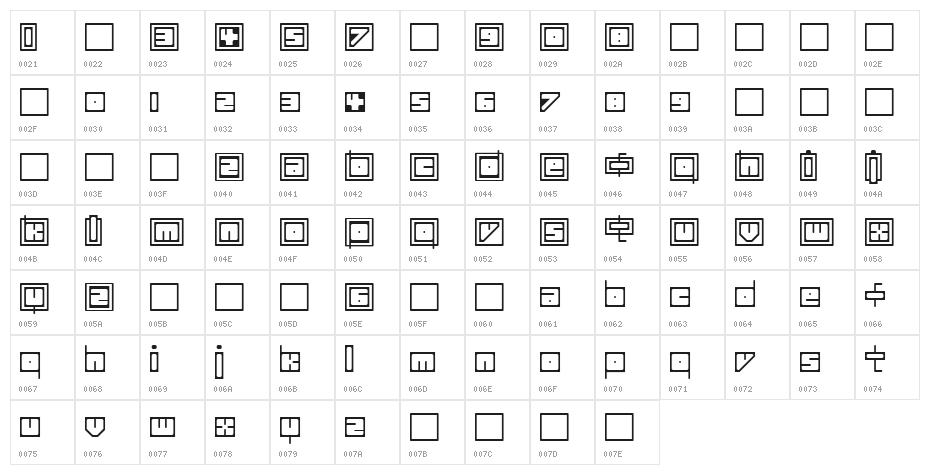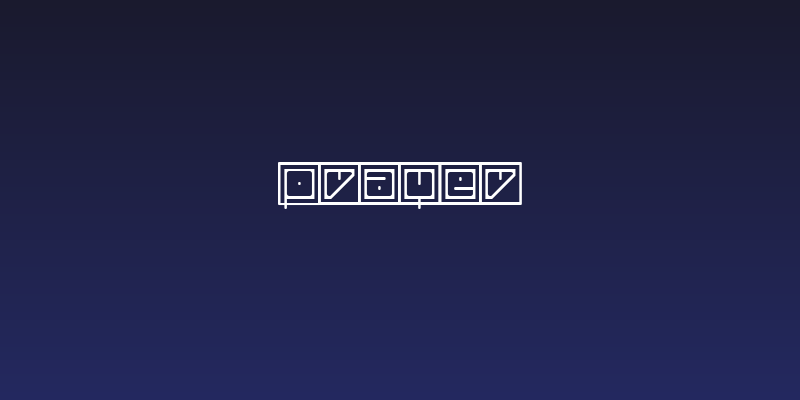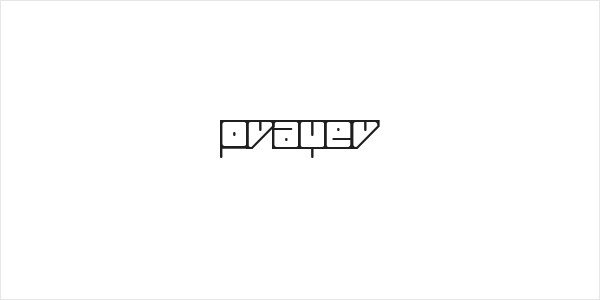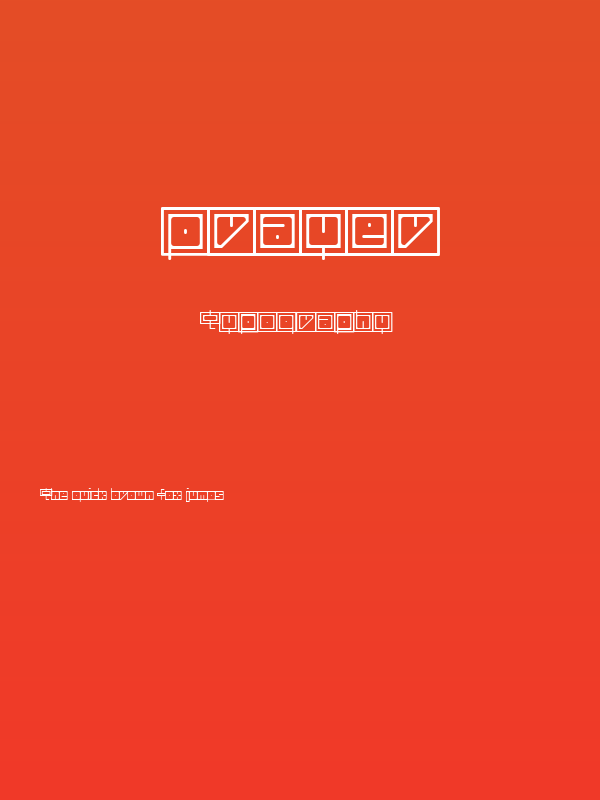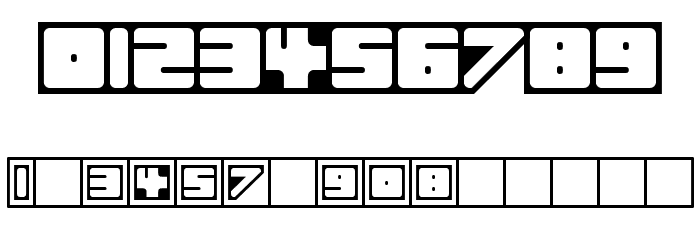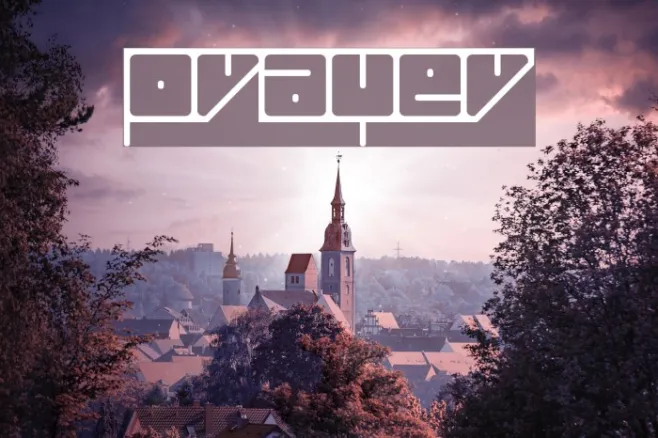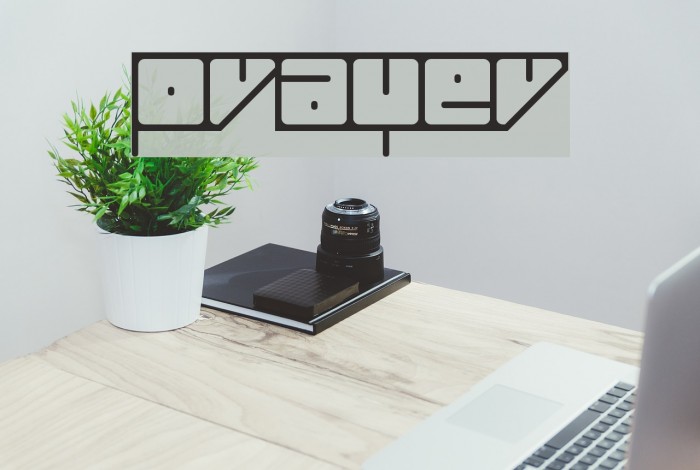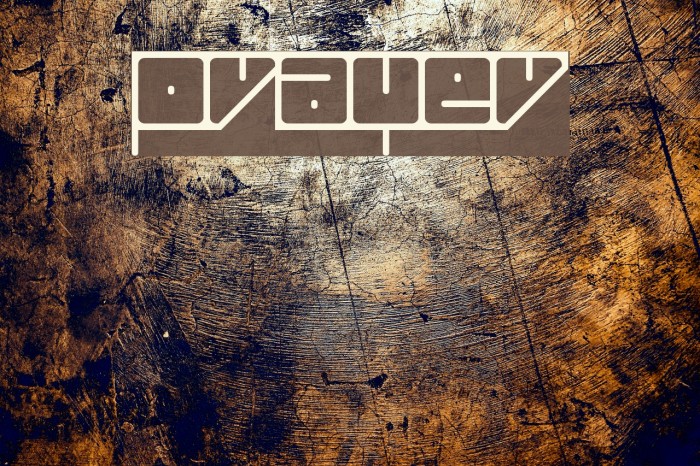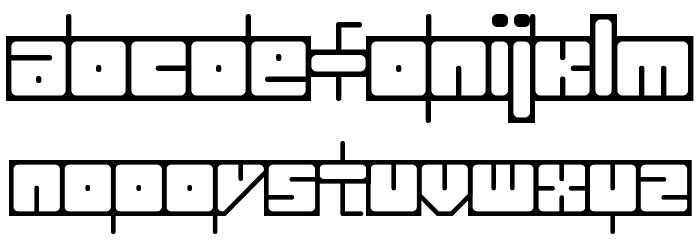
prayer Font
prayer Description
This font features a unique, geometric design with each character enclosed in a square or rectangular frame. The letters and numbers are constructed with bold, uniform strokes, creating a modern and futuristic appearance. The use of straight lines and right angles gives it a structured and mechanical feel. The characters are evenly spaced within their frames, contributing to a clean and organized look. This font's distinct style makes it stand out, with a focus on symmetry and balance. The special characters are integrated seamlessly, maintaining the overall aesthetic. The design is consistent across uppercase, lowercase, and numerical characters, ensuring a cohesive visual experience.
| Proposed Projects | Ideal for technology-themed projects, futuristic branding, digital interfaces, and modern art installations. |